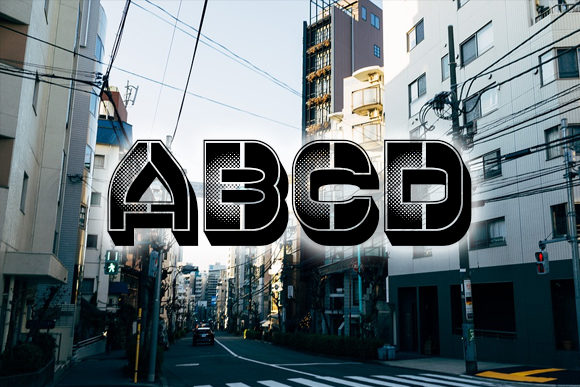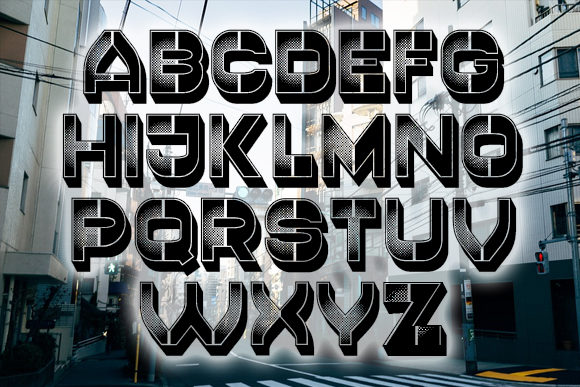
Canto Font: Elevate Your Designs with a Bold Gradient Display Font
Are you tired of using the same old fonts in your designs? Look no further than Canto Font, a bold gradient display font that is sure to take your creations to the next level. With its unique blend of style and versatility, Canto is the perfect addition to any designer’s toolkit.
What is Canto Font?
Canto Font is a modern, bold gradient display font that is designed to make a statement. Its sleek lines, vibrant colors, and seamless gradients make it the perfect choice for designers who want to add a touch of sophistication and elegance to their work. Whether you’re creating a logo, a poster, or a social media graphic, Canto Font is sure to turn heads.
Key Features of Canto Font
- Bold and Eye-Catching: Canto Font is a bold and eye-catching font that is designed to grab attention. Its thick lines and vibrant colors make it perfect for headlines, titles, and other design elements that need to stand out.
- Gradient Effects: One of the standout features of Canto Font is its seamless gradient effects. With a range of colors to choose from, you can create unique and eye-catching designs that will set you apart from the crowd.
- Highly Versatile: Canto Font is incredibly versatile, making it perfect for a wide range of design applications. Whether you’re creating a logo, a poster, or a social media graphic, Canto Font will fit perfectly.
- Easy to Use: Despite its professional-grade features, Canto Font is incredibly easy to use. With a simple and intuitive design, you can quickly and easily add Canto Font to your designs and start experimenting with its endless variations.
Endless Variations
One of the best things about Canto Font is its endless variations. With a range of colors, gradients, and design elements to choose from, you can create unique and eye-catching designs that reflect your personal style. Here are just a few ideas to get you started:
- Monochromatic: Create a cohesive look by using different shades of the same color. This is a great way to add depth and interest to your designs.
- Multicolor: Why settle for just one color when you can use multiple? Canto Font makes it easy to create bold and eye-catching multicolor designs.
- Gradient: Take advantage of Canto Font’s seamless gradient effects to create designs that transition smoothly from one color to another.
Canto Font is perfect for designers and crafters who want to add a touch of style and sophistication to their work. Whether you’re creating professional-grade designs or just having fun with a hobby, Canto Font is the perfect choice. Here are just a few ways you can use Canto Font:
- Logo Design: Create a bold and eye-catching logo that will help your business stand out.
- Poster Design: Create a stunning poster that will grab attention and communicate your message.
- Social Media Graphics: Add a touch of style and sophistication to your social media graphics.
- Crafting: Use Canto Font to add a personal touch to your crafting projects, such as handmade cards, invitations, and scrapbooking.
In conclusion, Canto Font is a bold gradient display font that is sure to elevate your designs to the next level. With its unique blend of style, versatility, and ease of use, Canto Font is the perfect addition to any designer’s toolkit. Whether you’re a professional designer or just starting out, Canto Font is a must-have font that will help you create stunning designs that will turn heads.